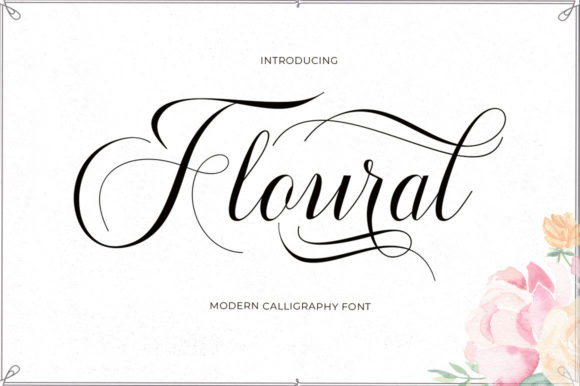
Introducing the Floural Script Font: Elevate Your Designs with Elegance and Sophistication
The Floural script font is a stunning calligraphy script that has been making waves in the design world. Its elegant and classy style adds a luxurious feel to any design, making it a popular choice among designers and crafters. In this article, we’ll dive into the world of Floural script font, exploring its features, benefits, and uses.
The Beauty of Floural Script Font
The Floural script font is a beautiful calligraphy script that exudes elegance and sophistication. Its flowing lines, intricate details, and refined letterforms make it a true masterpiece. The font’s design is inspired by traditional calligraphy, with a modern twist that makes it perfect for contemporary designs.
One of the standout features of Floural script font is its luxurious feel. The font’s elegant style adds a touch of sophistication to any design, making it perfect for high-end brands, weddings, and other special occasions. Whether you’re designing a logo, invitation, or packaging, Floural script font is sure to make a statement.
Features of Floural Script Font
So, what makes Floural script font so special? Here are some of its key features:
- Elegant and classy style: Floural script font has a refined and sophisticated style that’s perfect for high-end designs.
- Flowing lines and intricate details: The font’s flowing lines and intricate details make it a true masterpiece of calligraphy.
- Refined letterforms: Each letterform is carefully crafted to ensure that the font is both beautiful and legible.
- Luxurious feel: Floural script font adds a touch of luxury to any design, making it perfect for high-end brands and special occasions.
Uses of Floural Script Font
So, how can you use Floural script font in your designs? Here are some ideas:
- Logos and branding: Floural script font is perfect for high-end brands that want to make a statement.
- Wedding invitations and stationery: The font’s elegant style makes it perfect for wedding invitations, stationery, and other special occasion designs.
- Packaging and product design: Floural script font can add a touch of luxury to packaging and product design, making it perfect for high-end products.
- Signage and display graphics: The font’s bold and elegant style makes it perfect for signage and display graphics.
Tips for Using Floural Script Font
Here are some tips for using Floural script font in your designs:
- Use it sparingly: Floural script font is a statement font, so use it sparingly to avoid overwhelming the design.
- Pair it with simple fonts: Pair Floural script font with simple fonts to create contrast and make the design more readable.
- Experiment with colors and textures: Experiment with different colors and textures to add depth and interest to the design.
| Font Name | Floural Script Font |
| Author | typehill |
The Floural script font is a beautiful calligraphy script that adds a touch of elegance and sophistication to any design. Its luxurious feel, flowing lines, and intricate details make it a popular choice among designers and crafters. Whether you’re designing a logo, invitation, or packaging, Floural script font is sure to make a statement. So why not give it a try and see how it can elevate your designs?